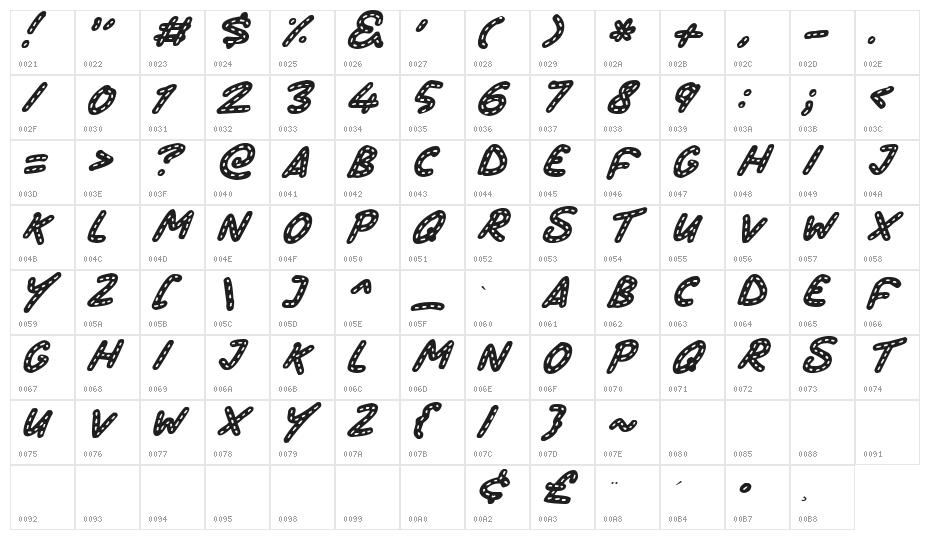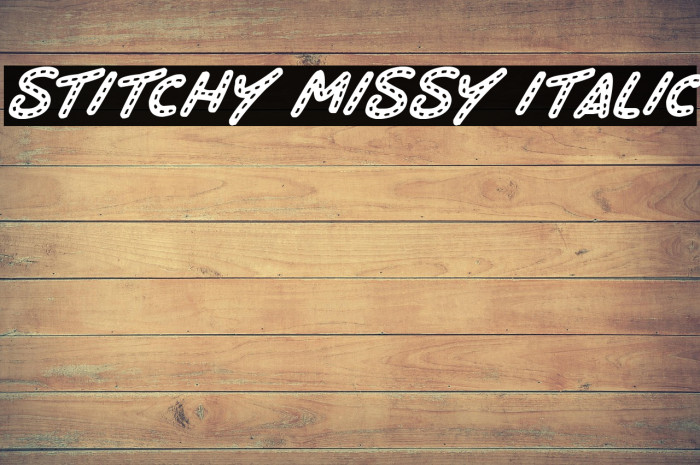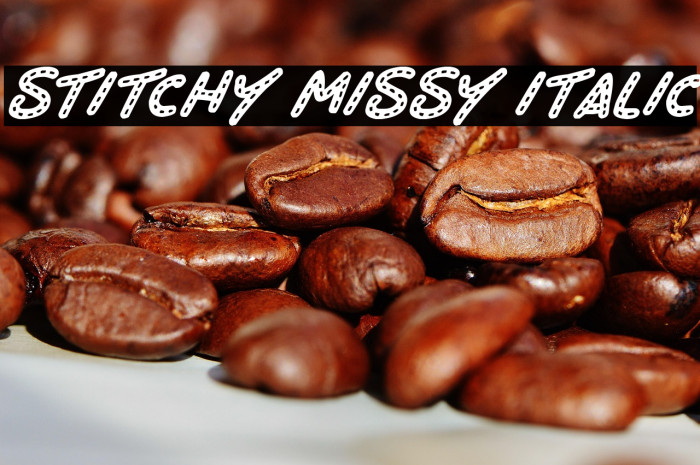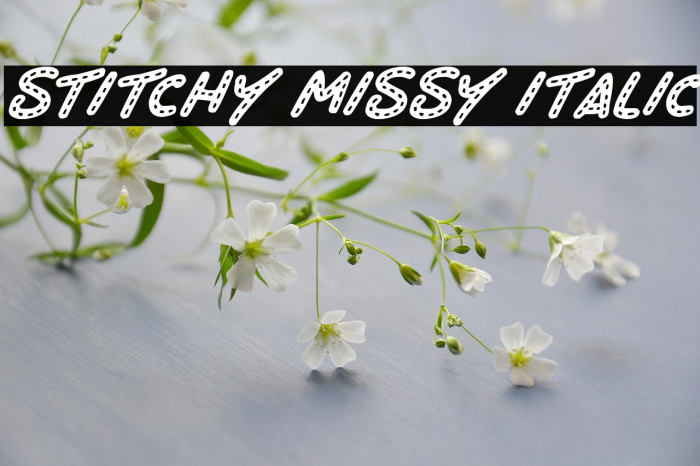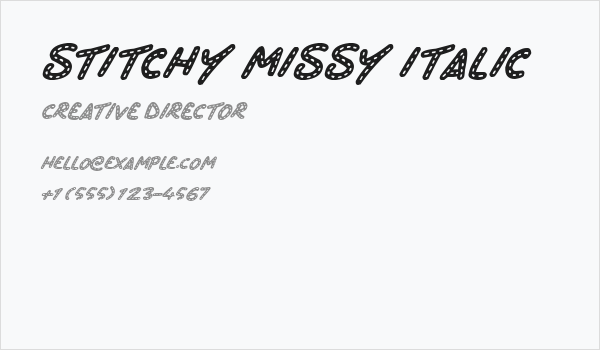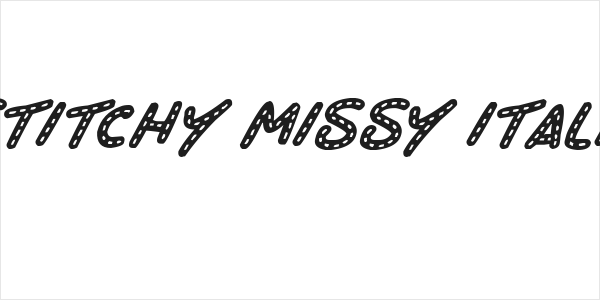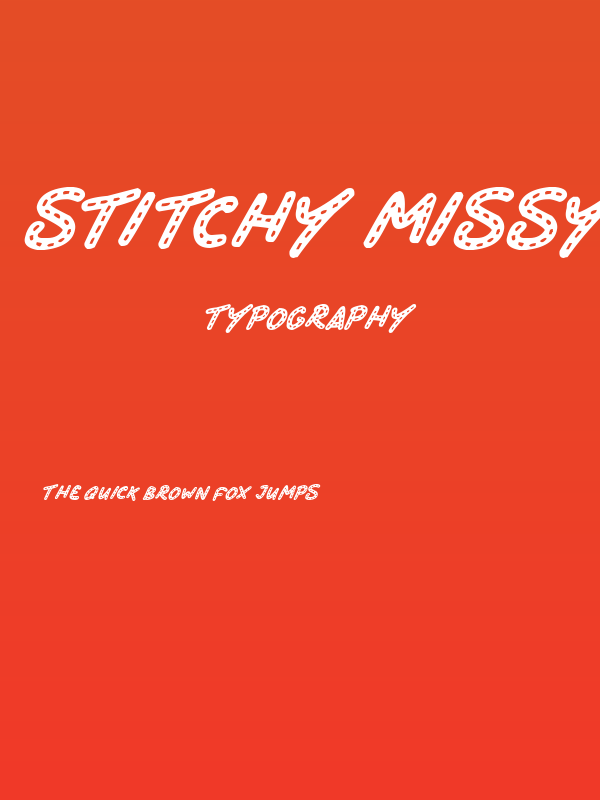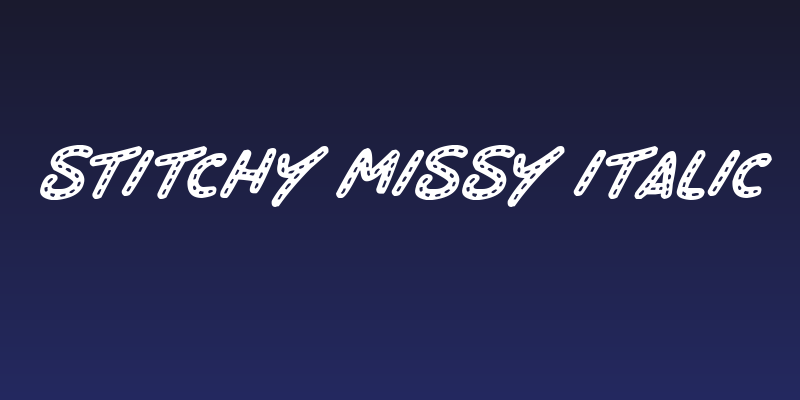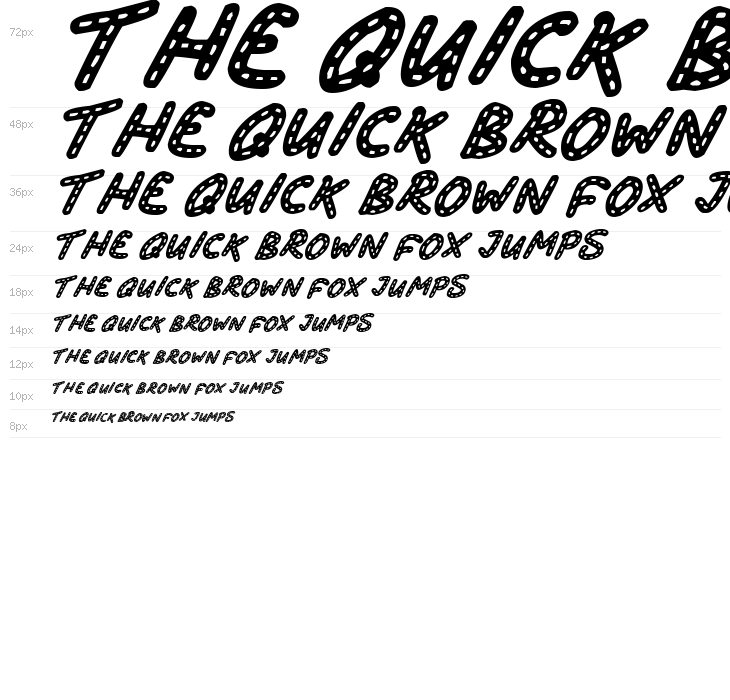
Stitchy Missy Italic Font
Stitchy Missy Italic Description
This playful and whimsical font features a unique stitched pattern within each character, giving it a handcrafted and artistic feel. The letters are italicized, adding a sense of movement and dynamism. The bold strokes and decorative elements make it stand out, while the consistent pattern across all characters maintains a cohesive look. The font includes both uppercase and lowercase letters, numbers, and a variety of special characters, making it versatile for different design needs. Its distinctive style is perfect for projects that require a touch of creativity and fun.
| Proposed Projects | Ideal for children's book covers, craft projects, playful branding, and creative invitations. |